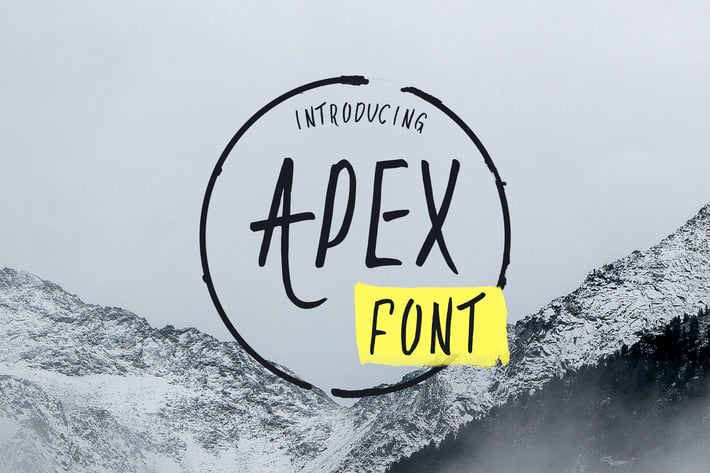
Apex Font
Handwritten font. Perfectly match for vintage advertisements, absolutely any introductions, presentations also it will be very helpful in your designing activities that require a natural, original hand-made brush font.